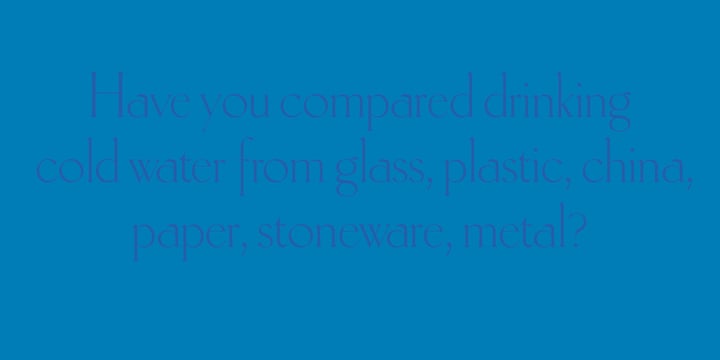
Antiqua Roman
Antiqua Roman by Yuanchen Jiang
About Antiqua Roman Font Family
This typeface is called Antiqua Roman. The biggest feature of this typeface is each letter contains a very thin stroke. Design based on the original handwriting letters made by Fritz Helmuth Ehmcke in 1907. Redesigned in 2015.